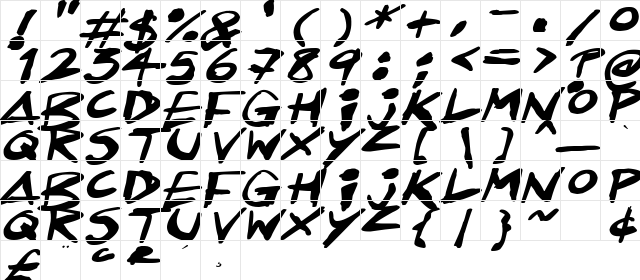
Inkling Italic
Inkling Family
Design Context for Inkling
Inkling is a composed and adaptable typeface that performs quietly and consistently across a wide range of design contexts. The slanted form adds forward momentum and visual energy.
Pro Tip: Use Inkling for emphasis, pull quotes, and subheadings where its slanted energy can add rhythm to the layout.